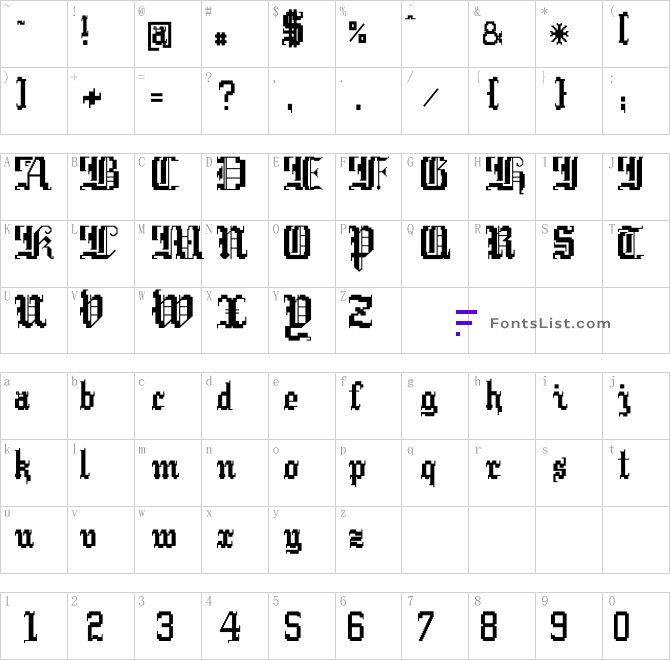
- Font Name:Argor Cwar Scaqh
Argor-Cwar-Scaqh.ttf is a very beautiful artistic font, Argor-Cwar-Scaqh.ttf is widely used in the design and printing of various books and pictures,Argor-Cwar-Scaqh.ttf has a strong visual impact,Argor-Cwar-Scaqh.ttf is a commonly used font in newspapers, magazines and books, and is used in posters, e-commerce Poster design, store design, logo design, font design and other fields.Argor-Cwar-Scaqh.